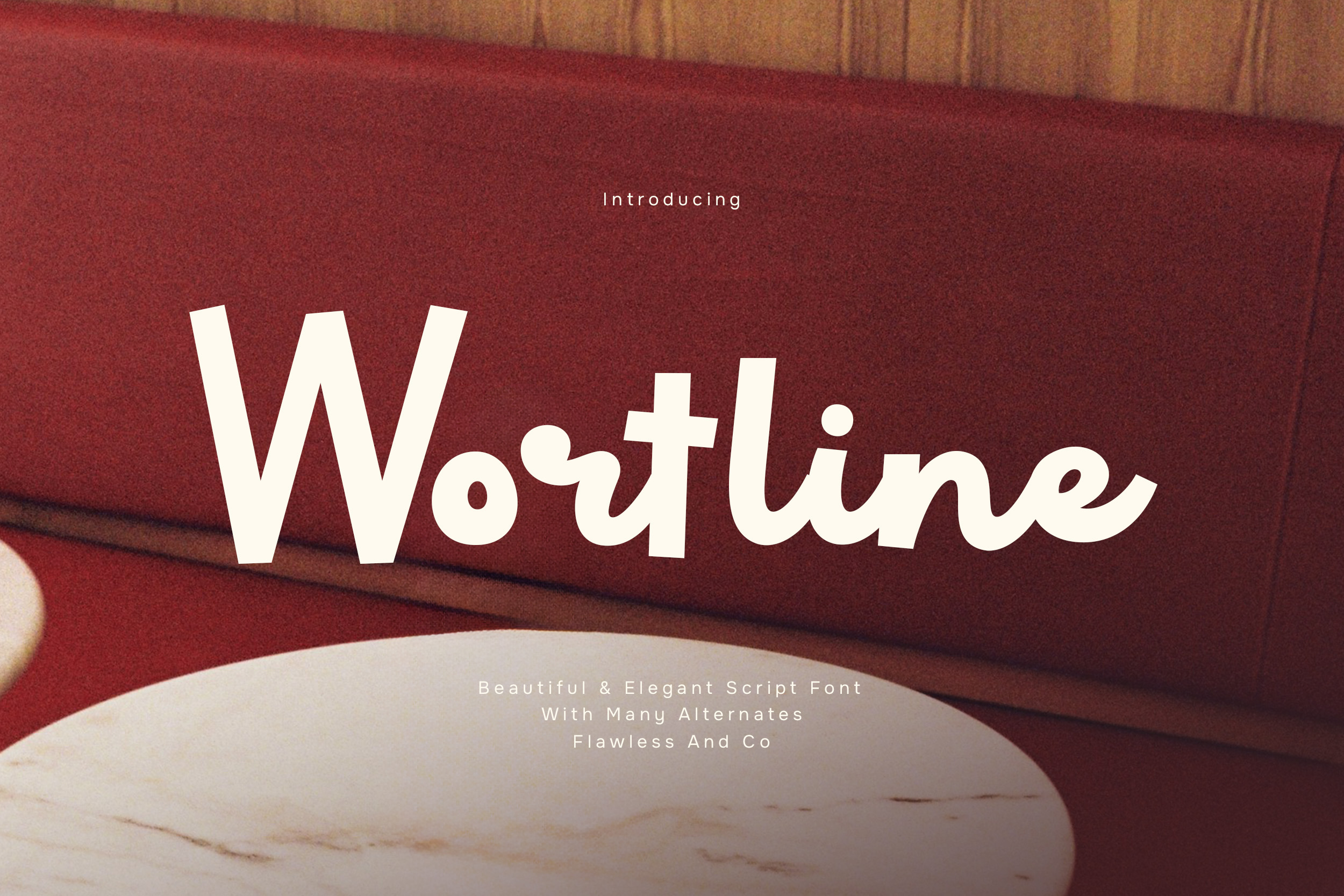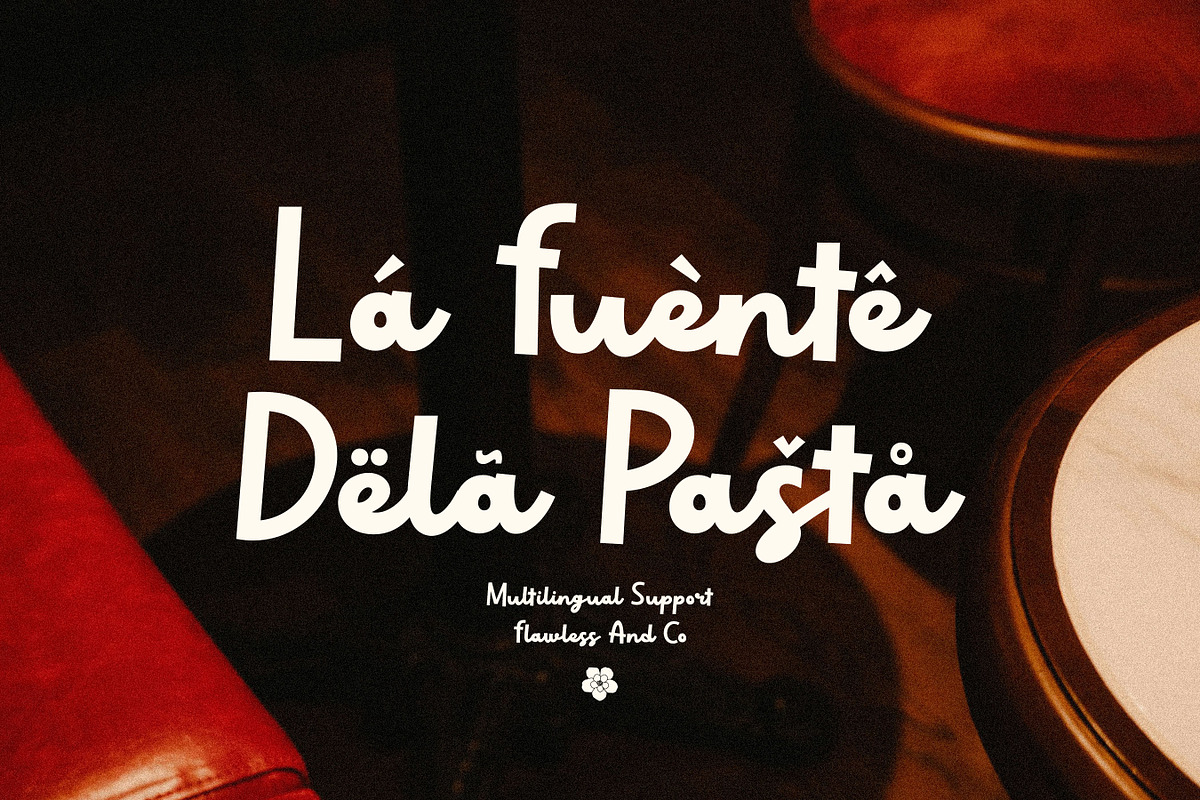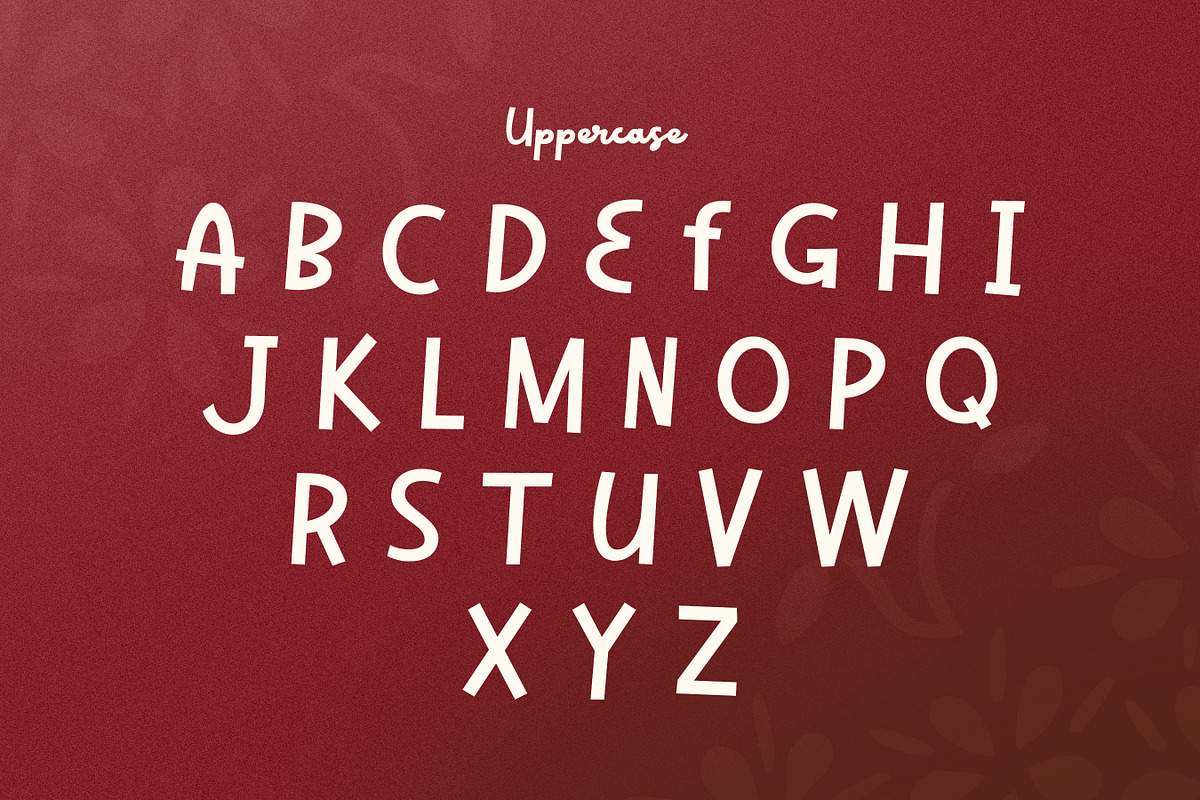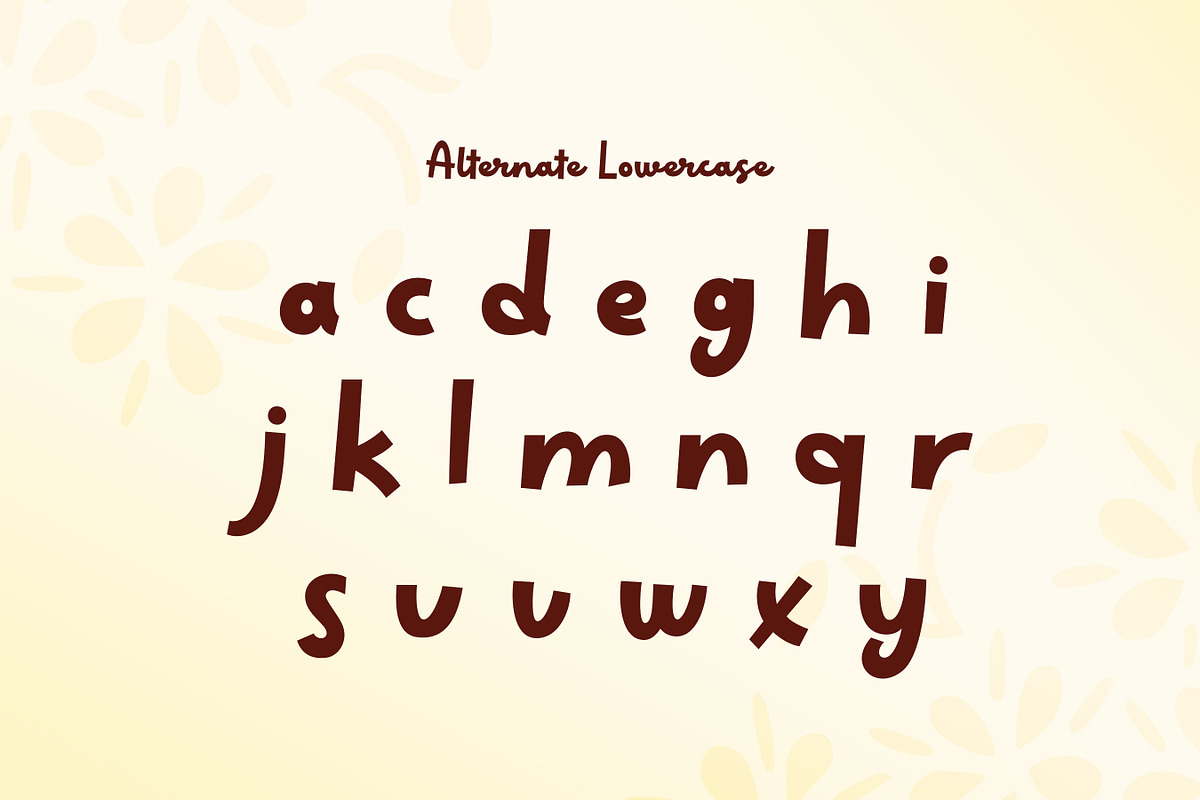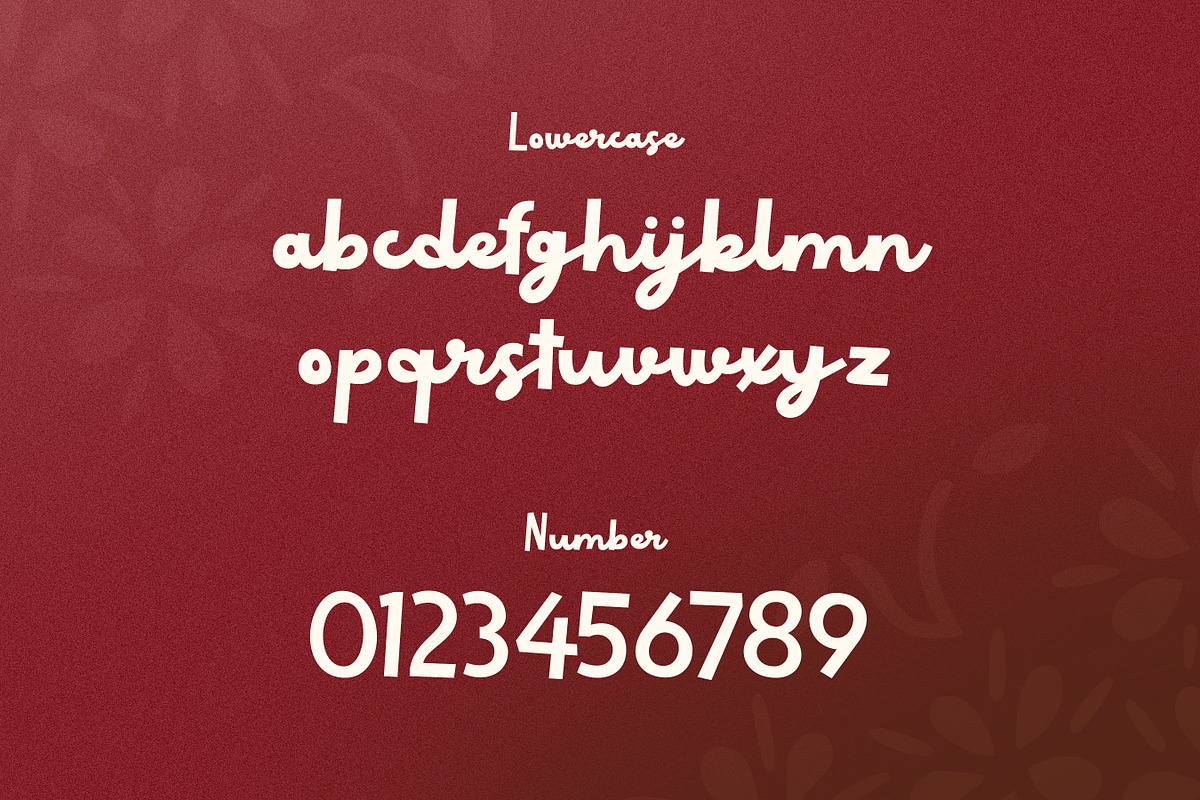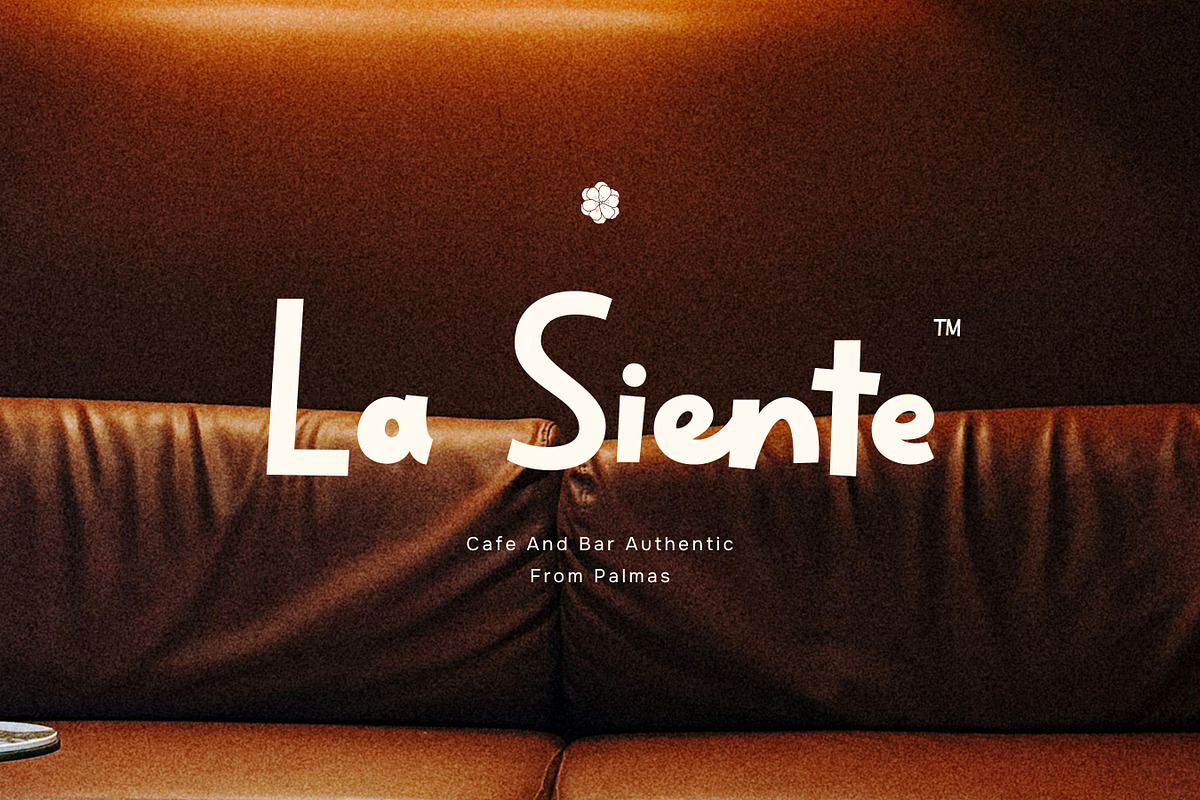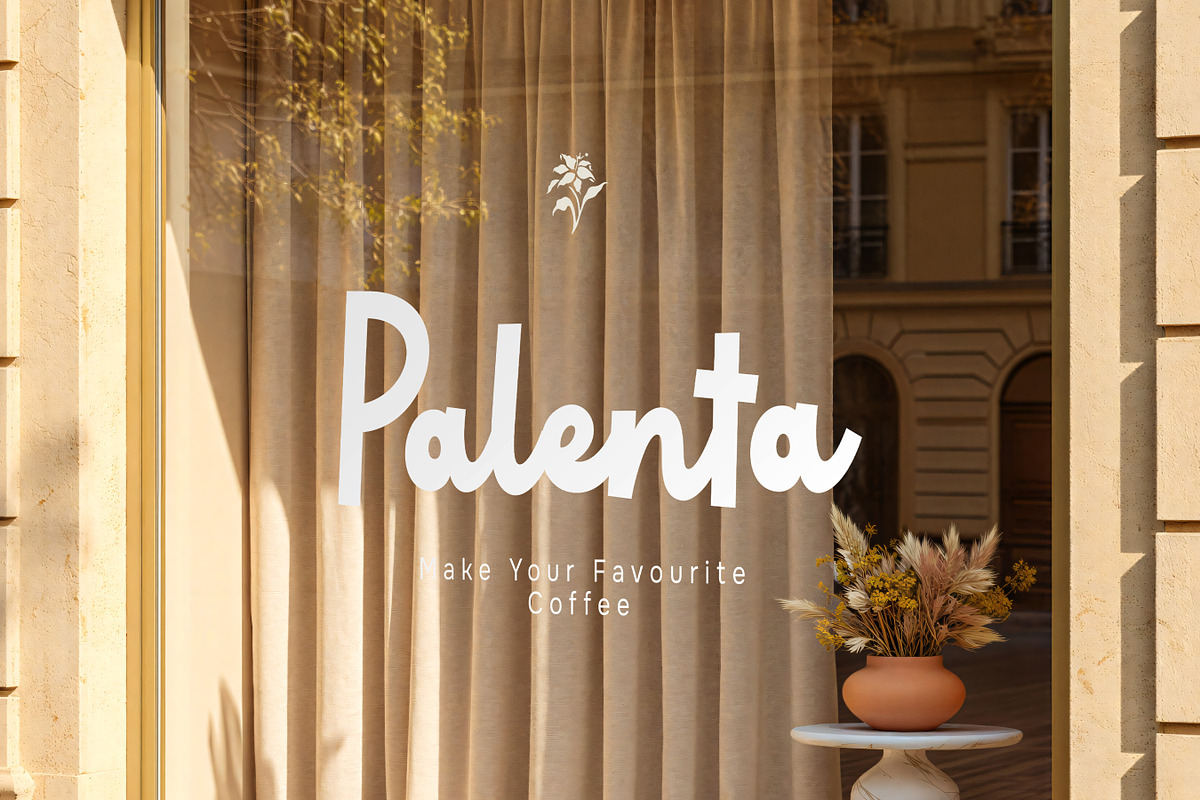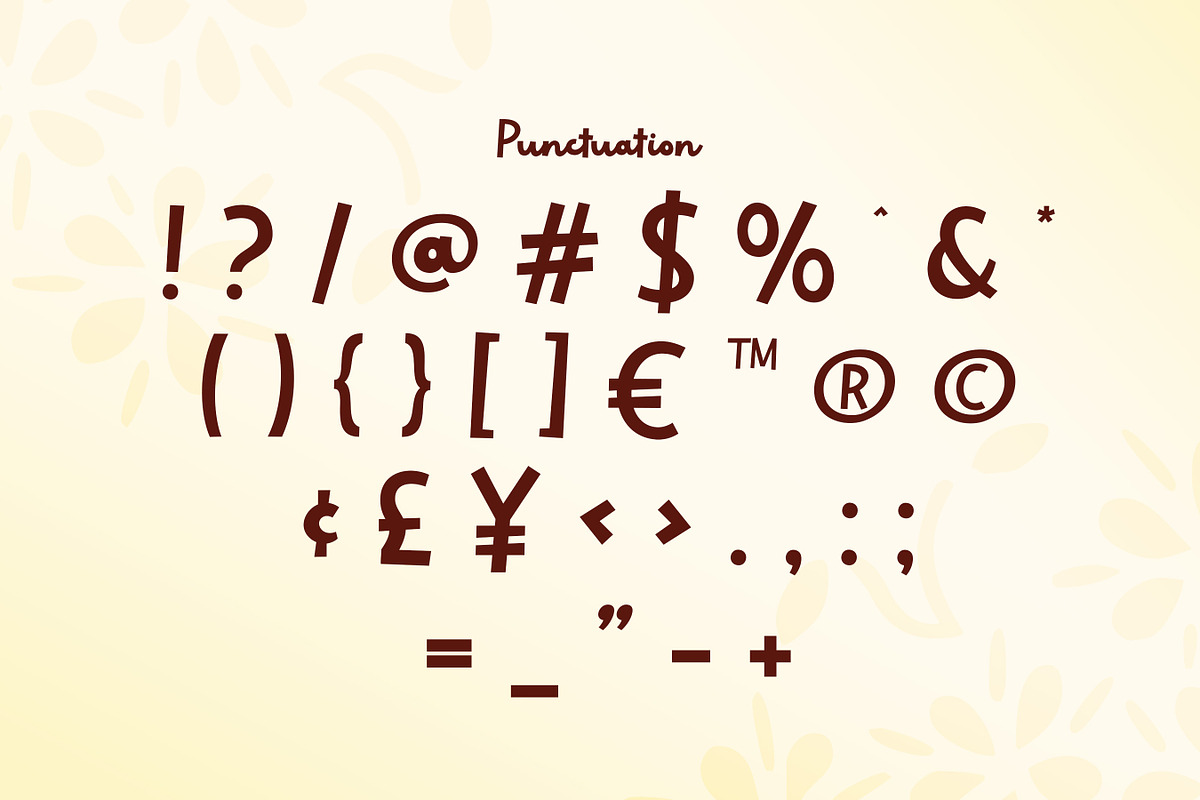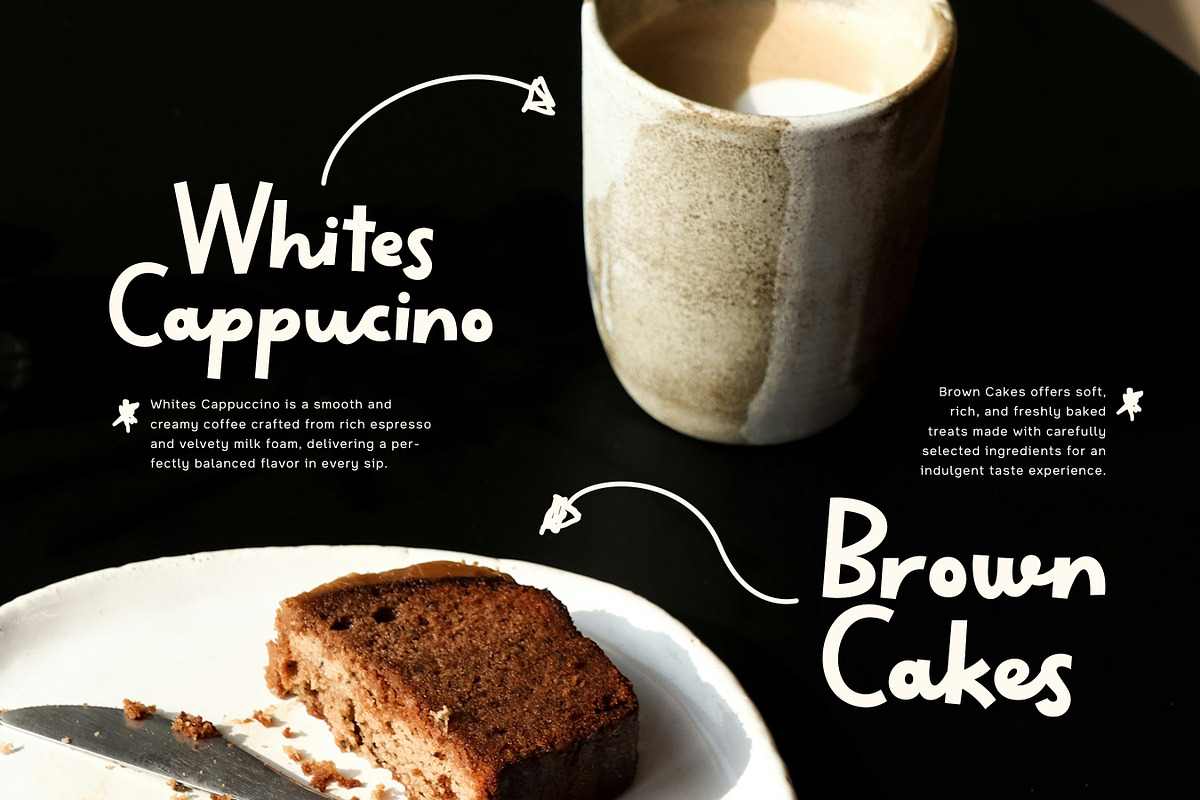
Wortline - Elegant Script Font
Wortline - Unique Elegant Script Font
Wortline is a unique elegant script font that celebrates the art of beautiful handwriting with a modern and expressive personality. Crafted with flowing strokes, graceful curves, and charming letter connections, Wortline brings a natural elegance that feels sophisticated without losing its warmth. Every character is designed to create a handwritten experience that looks effortless, stylish, and full of life.
More than just a script font, Wortline is designed to become the voice of memorable brands. Its distinctive letterforms and thoughtfully crafted alternates allow you to create typography that feels custom-made, giving every logo, headline, or quote a unique signature appearance. Whether your style is minimal, luxurious, or playful, Wortline adapts beautifully while maintaining its unmistakable charm.
Alternates & Ligatures
Who should use Wortline?
Wortline is perfect for designers, creative studios, boutique brands, wedding professionals, entrepreneurs, and content creators looking for a handwritten script that feels elegant, unique, and naturally expressive. It's ideal for projects that require typography with personality and timeless appeal.
Suitable for:
Elegant logo and branding
Wedding invitations and stationery
Fashion and beauty brands
Café and restaurant identities
Luxury packaging and labels
Editorial and magazine design
Social media content
Signature-style typography